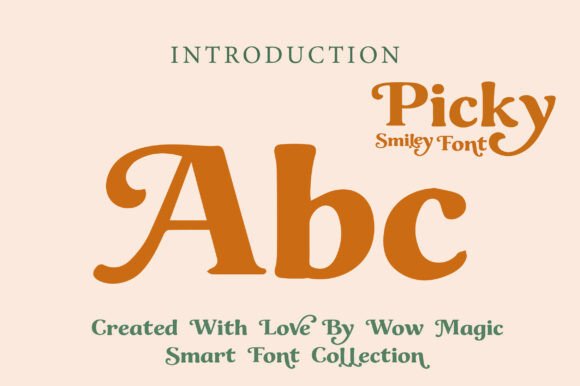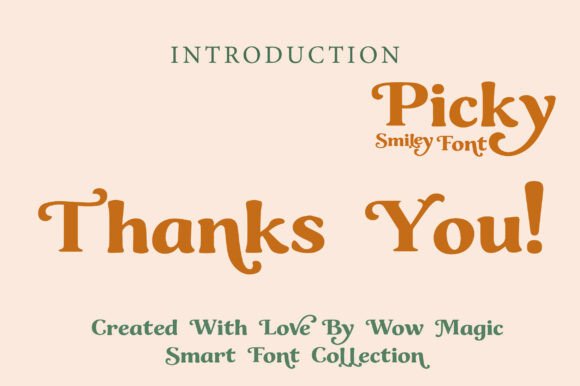
Introduction to Picky Smiley Font
Picky Smiley Font is a playful retro-inspired display typeface with charming curves, bold serif details, and whimsical swashes that bring personality to every letter.
Its expressive shapes and decorative terminals create a cheerful vintage feel, making it perfect for designs that need warmth, fun, and standout character The font blends nostalgic elegance with a lighthearted twist, giving it a unique visual style that works beautifully for branding, packaging, posters, invitations, logos, social media graphics, and creative headline projects.